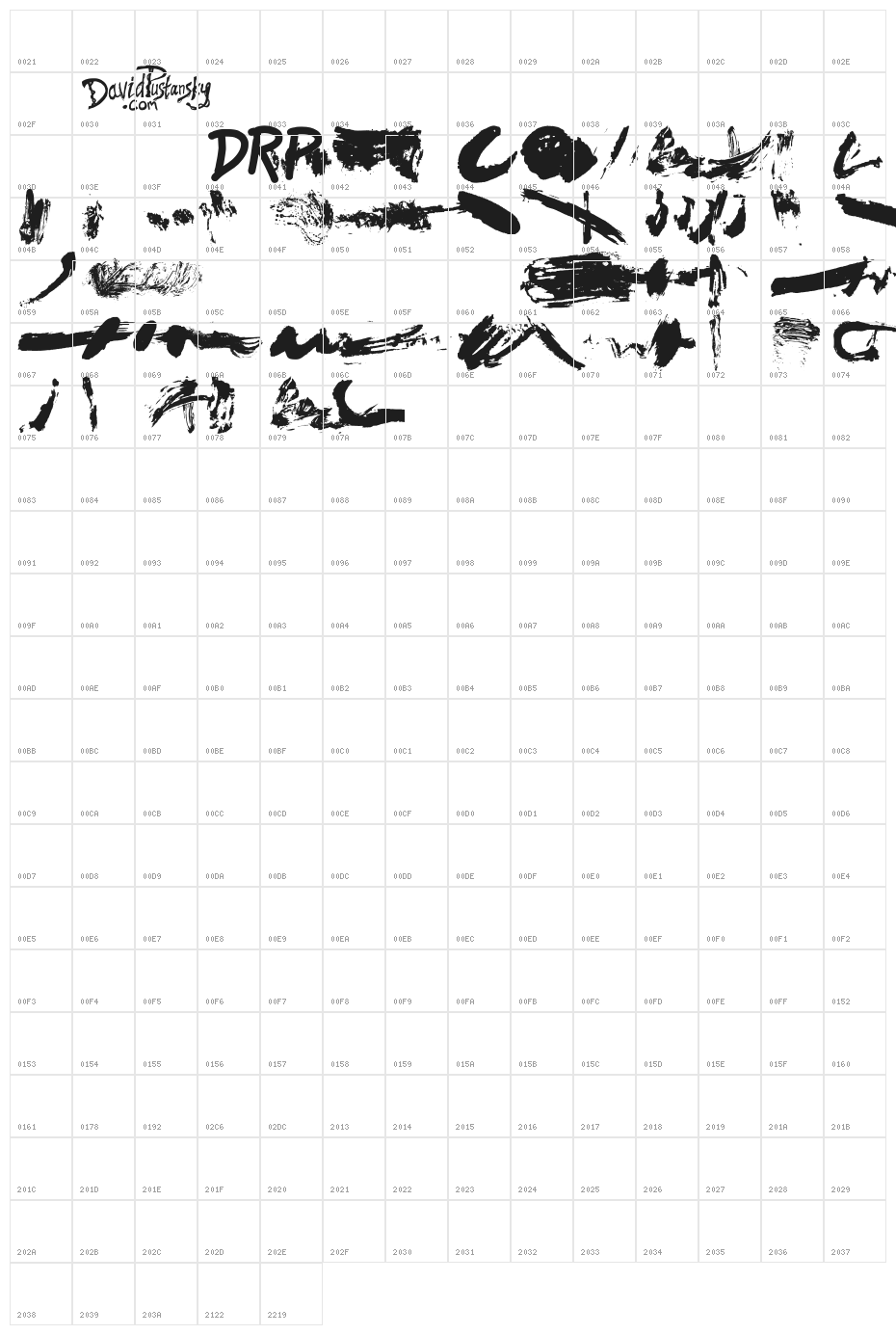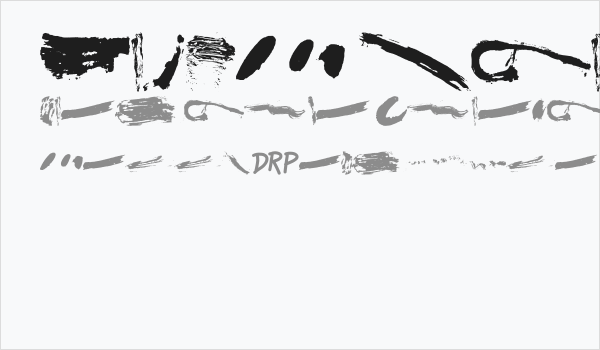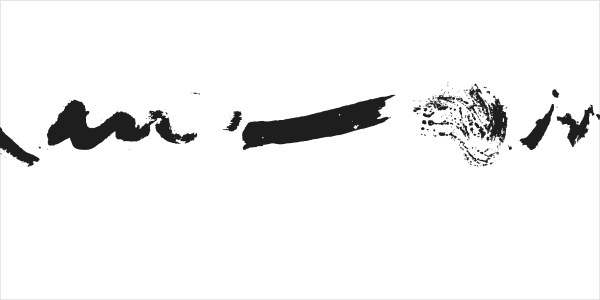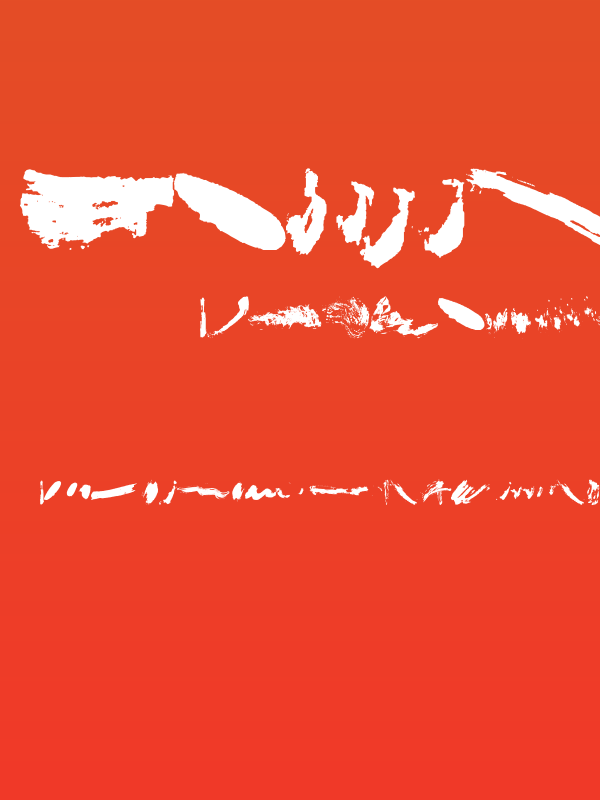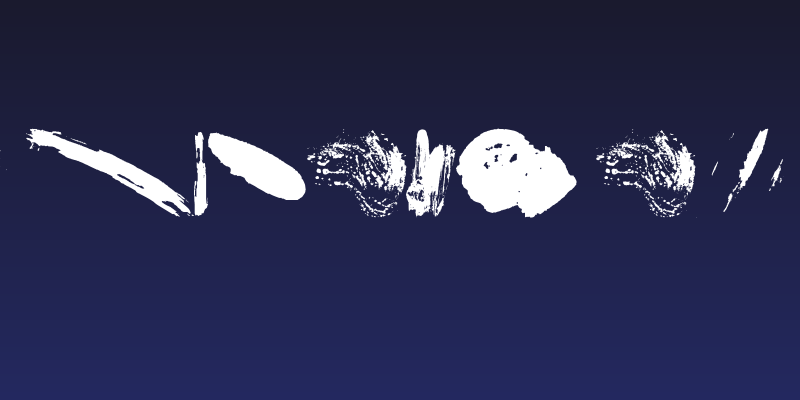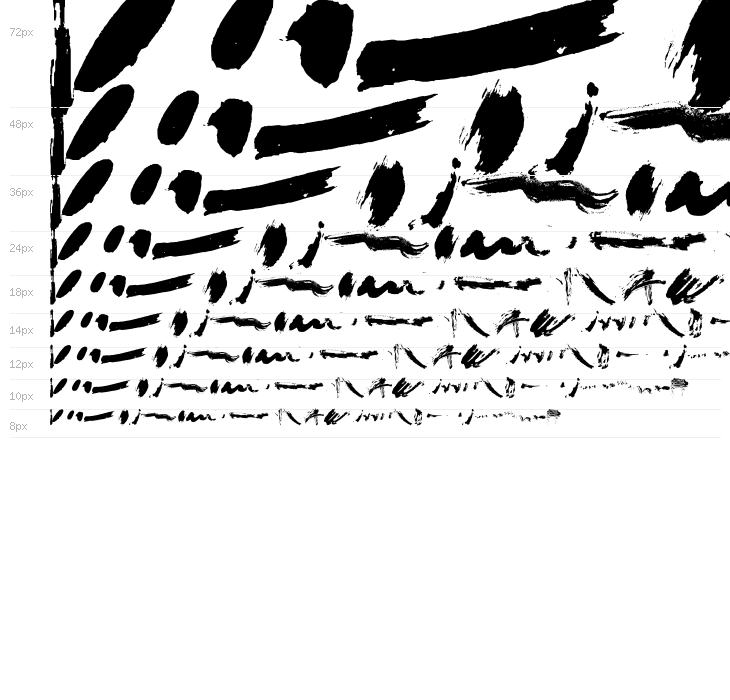
Brush Stroke Of Genius Font
Brush Stroke Of Genius Description
This font embodies an artistic and expressive style, reminiscent of bold brush strokes. Each character is uniquely crafted to mimic the texture and flow of a paintbrush, creating a dynamic and energetic appearance. The strokes vary in thickness, adding a sense of movement and creativity. The irregular edges and organic shapes give it a handcrafted feel, making it ideal for projects that require a personal touch. The font's design captures the essence of artistic expression, making it suitable for creative and unconventional applications.
| Overall Style | Artistic, Expressive, Handcrafted |
| Proposed Projects | Ideal for art-related projects, creative branding, posters, and invitations that require a personal and artistic touch. |